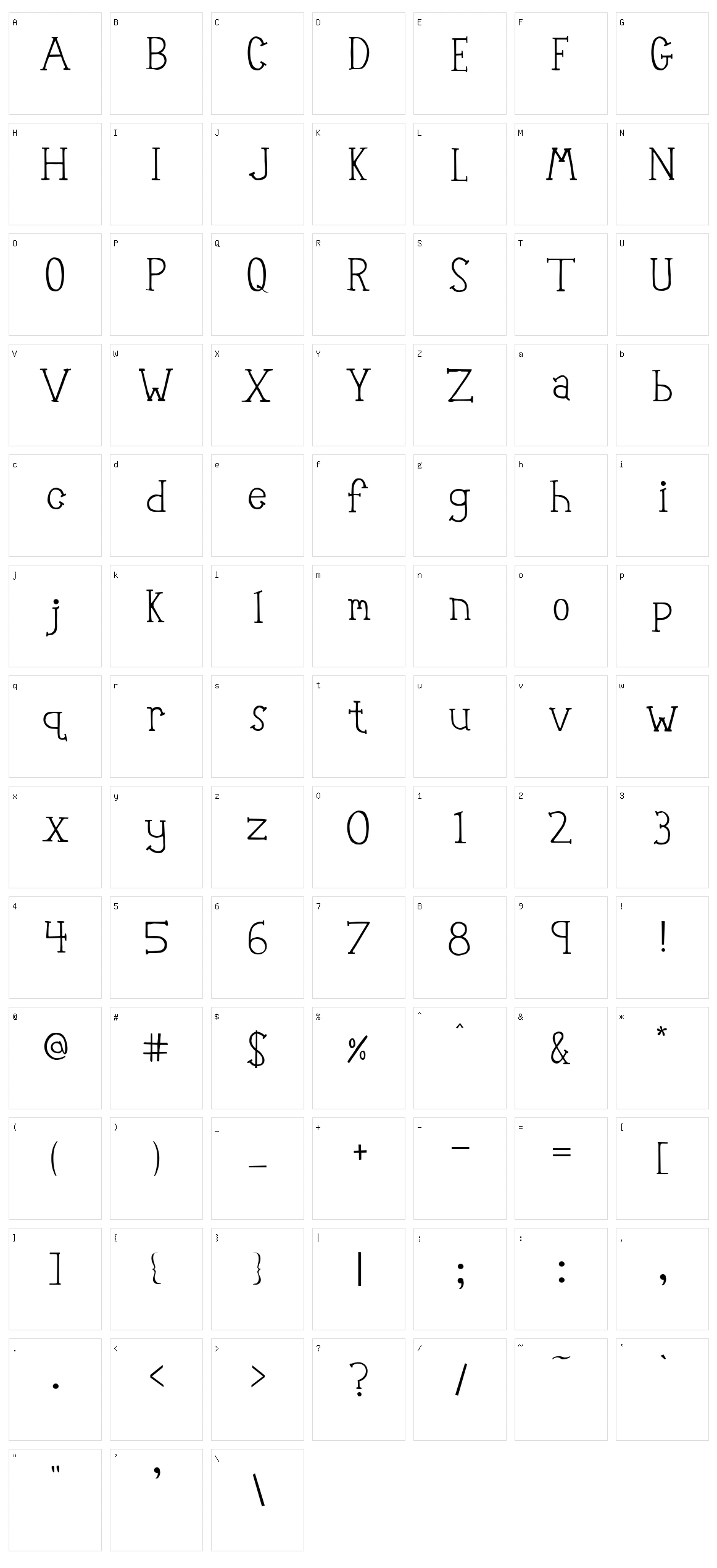
The free font Robot Teacher is carefully designed by Divide by Zero, showcasing a thoughtful balance of creativity and usability and falls under the Cartoon font style. When you download the ZIP file, it contains only 25.57 KB of font files, making it lightweight and quick to download. Please review the license details below to understand permitted usage and distribution rights. If license information is not available, we recommend using this font for personal projects only or contacting the author directly for commercial usage permissions.